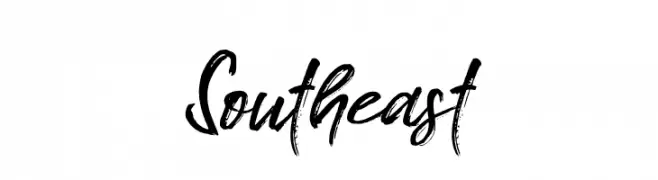
A lively and expressive handwritten font with flowing cursive letterforms.
A playful, romantic cursive font with a smooth, handwritten style.
An elegant, flowing script font with a handwritten appearance.
An elegant, flowing script font with bold, expressive strokes.
A dynamic, expressive handwritten font with fluid, cursive strokes.
A dynamic, brush-style font with expressive and artistic strokes.
A bold, cursive font with interconnected characters and elegant curves.